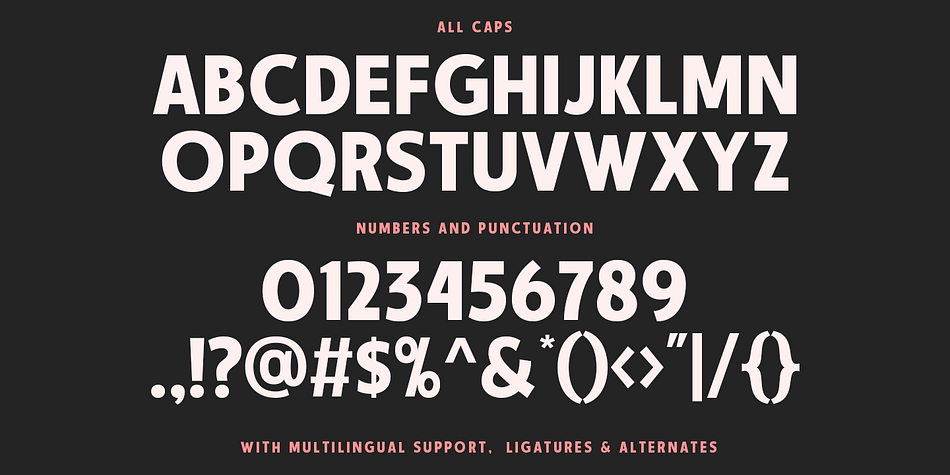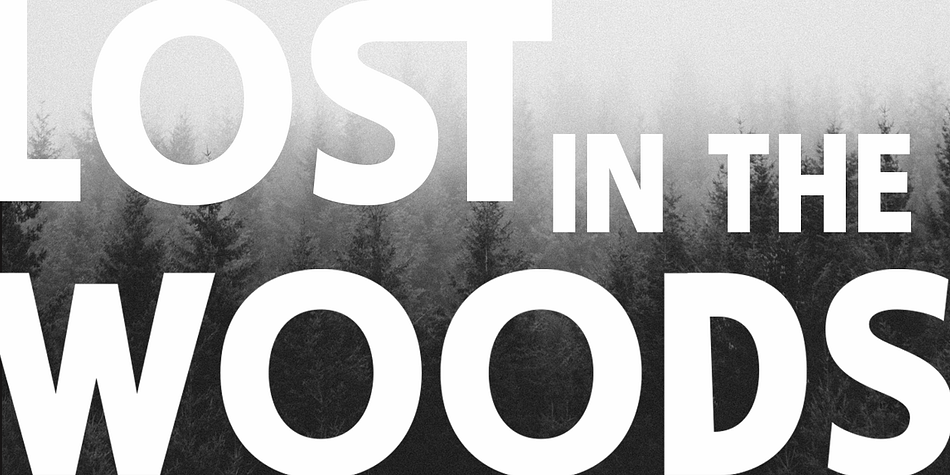
TROGLEN SANS
Designed by Hendry Juanda, Troglen Sans is a display sans font family published by Letterhend Studio.
Troglen Sans is a professional, bold sans-serif font that’s perfect for grabbing attention. With a modern, casual feel and thick strokes, it’s perfect for headlines and making a statement that’s both bold and confident.This font perfectly made to be applied especially in logo, and the other various formal forms such as invitations, labels, logos, magazines, books, greeting / wedding cards, packaging, fashion, make up, stationery, novels, labels or any type of advertising purpose.
- Uppercase & lowercase
- Numbers and punctuation
- Alternates & Ligatures
- Multilingual